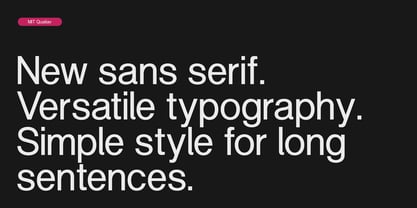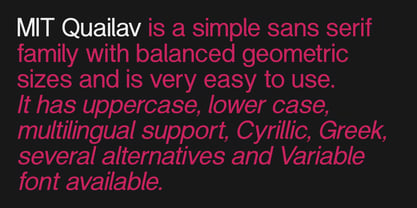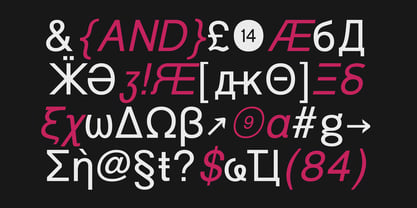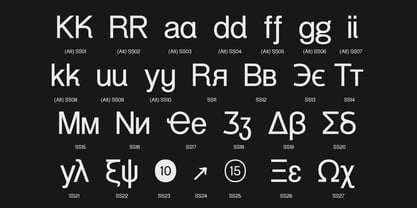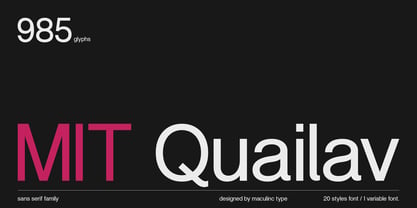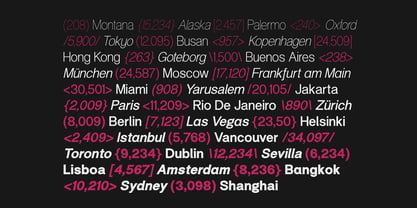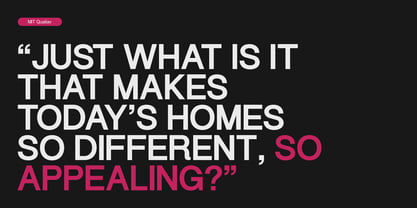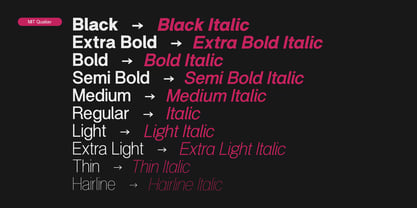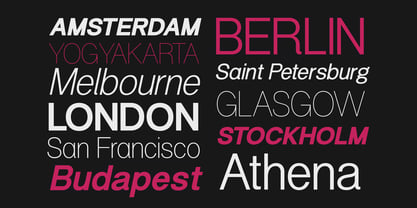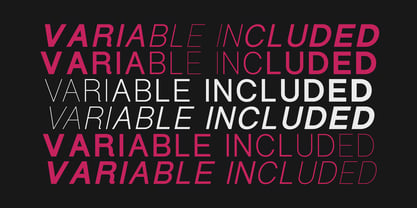
MIT Quailav
About MIT Quailav (Sans Serif Family Font) Variable Included
MIT Quailav is a simple sans serif with balanced geometric sizes and is very easy to use. mainstream similar to most fonts with neutral but recognizable characters.
Supports uppercase, lowercase, multilingual, Cyrillic, Greek,
several alternatives and Variable fonts available. All terminals are positioned on one level, and the glyphs display balanced strokes.
The name MIT Quailav itself is just an invention that makes it unique in our opinion. When working on this typeface, we aimed to create a practical and functional designer tool with its own style and aesthetics.
Thanks to its large character set, various font styles and extensive language support, MIT Quailav offers solutions to handle a variety of different tasks. This gives designers more opportunities to unleash their creativity.
The font is easily adaptable to any contemporary project. Perfect for web and app design and looks great in branding, packaging design and printing. This font is very readable and works well in running text and large point sizes.
MIT Quailav includes:
21 font styles, including 1 variable font; 985 glyphs in each font